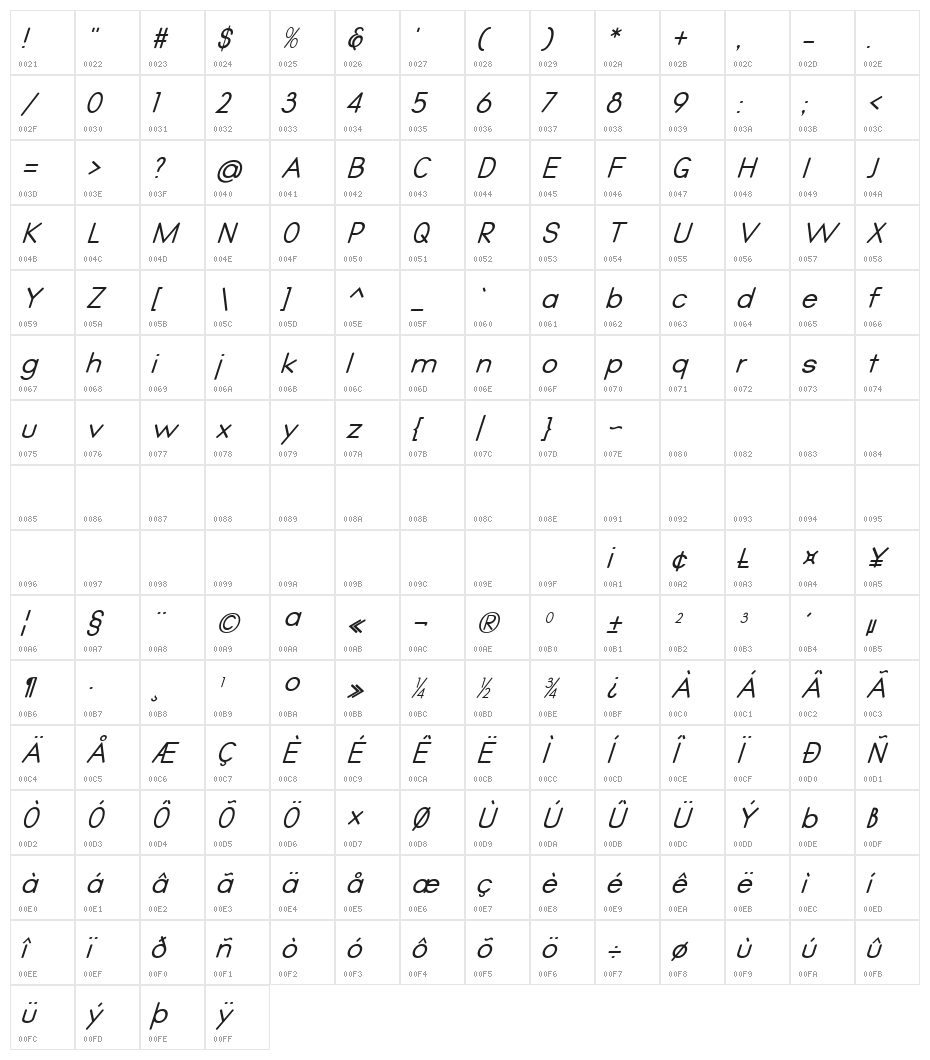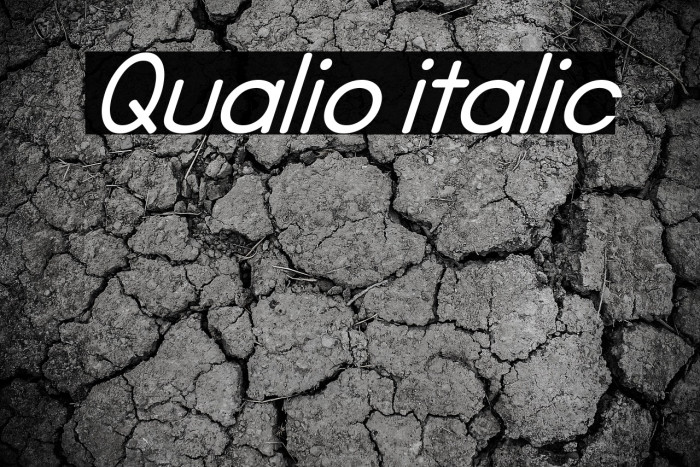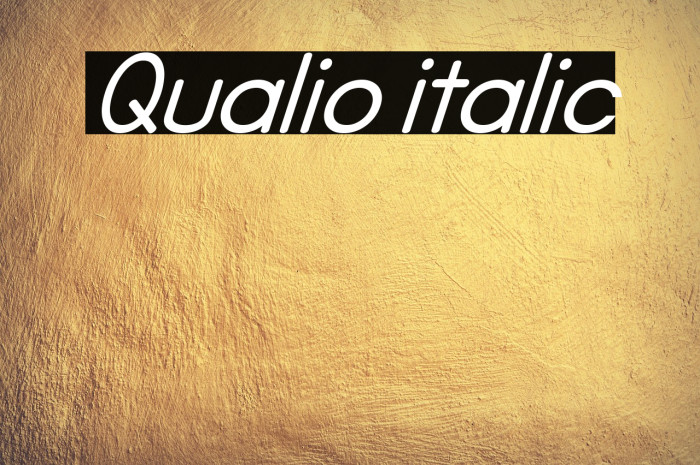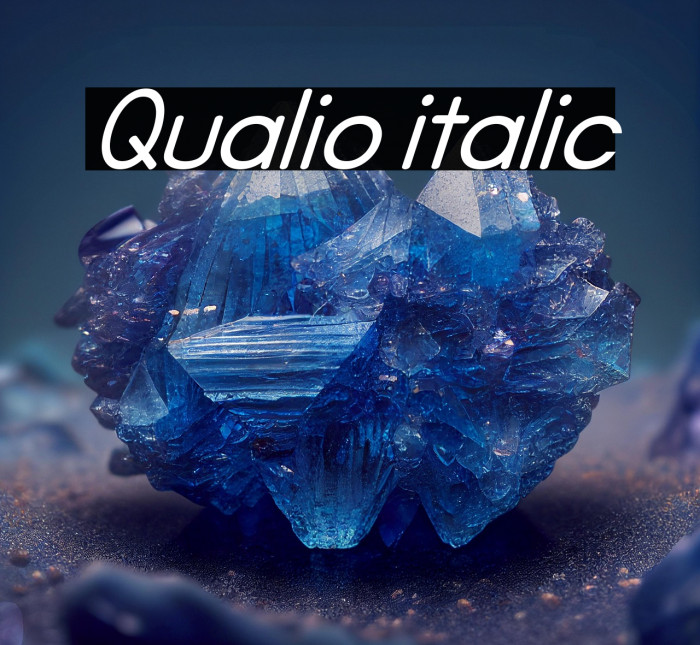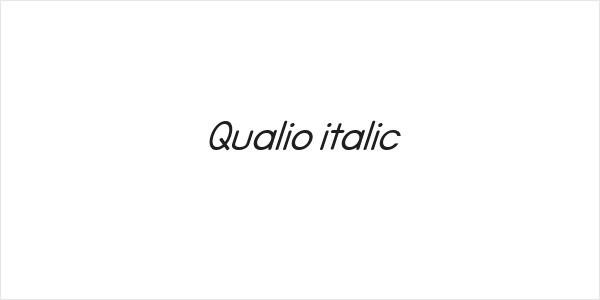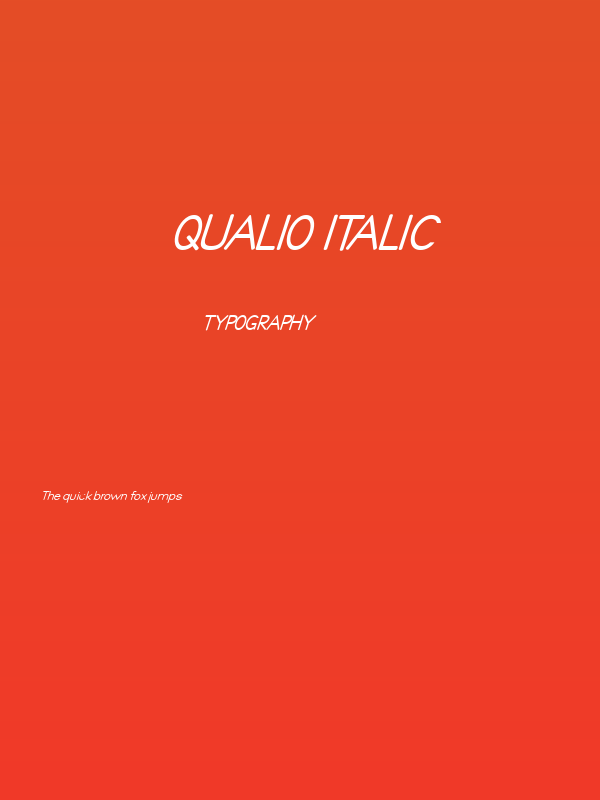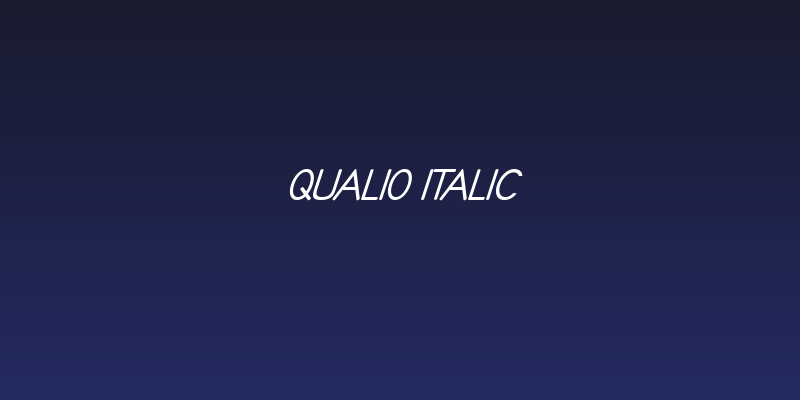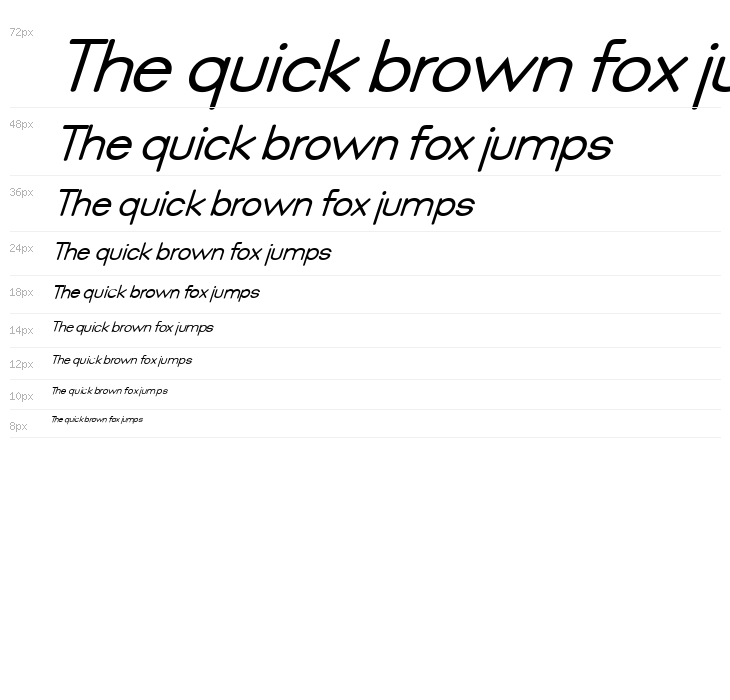
Qualio italic Font
Qualio italic Description
This font features a sleek and modern italic style, characterized by its smooth curves and slightly elongated letterforms. The design is clean and minimalistic, with a consistent slant that adds a sense of motion and elegance. The uppercase and lowercase letters maintain a harmonious balance, while the numerals and special characters are crafted to match the overall aesthetic. The font's simplicity and clarity make it versatile for various design applications, providing a contemporary touch to any project.